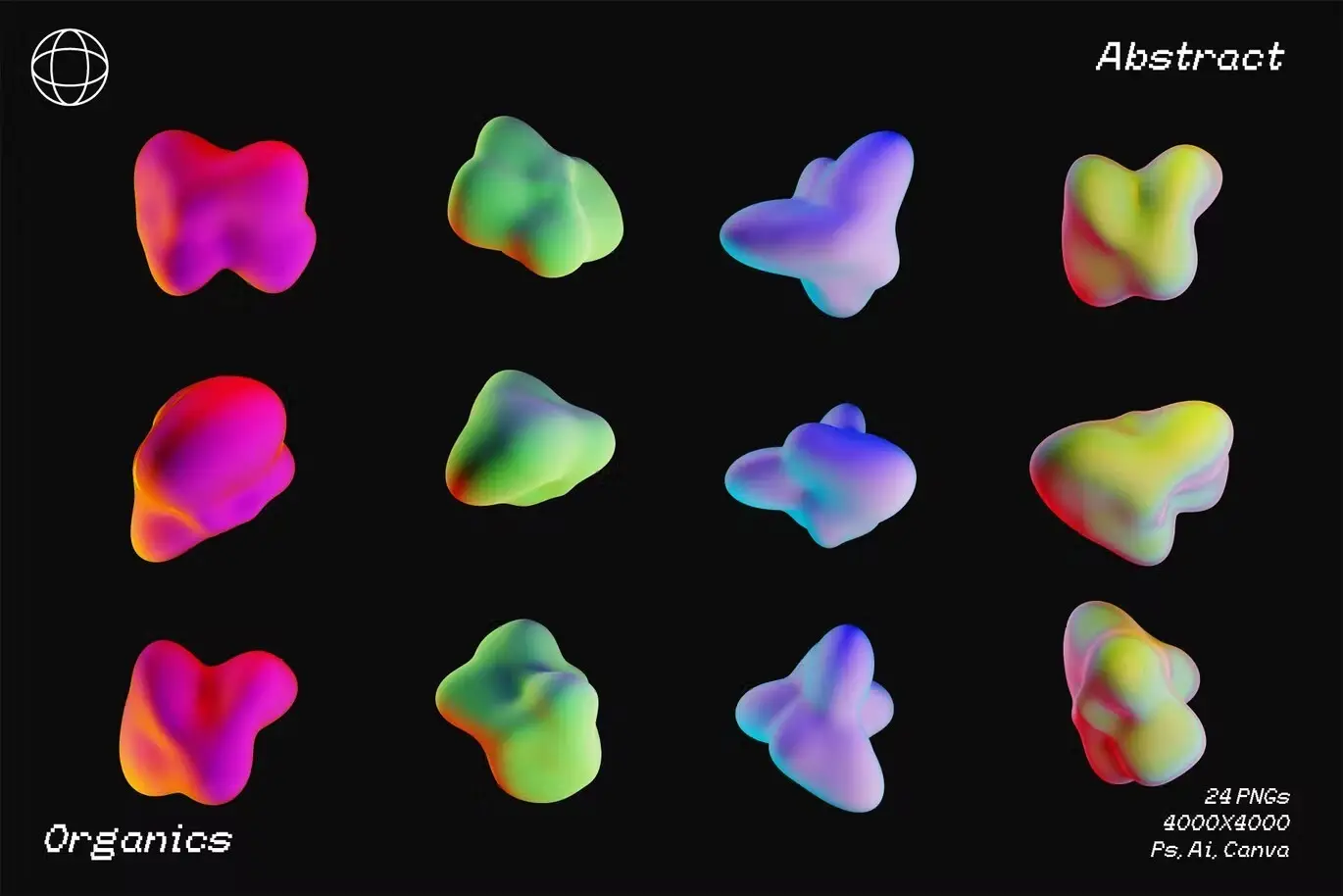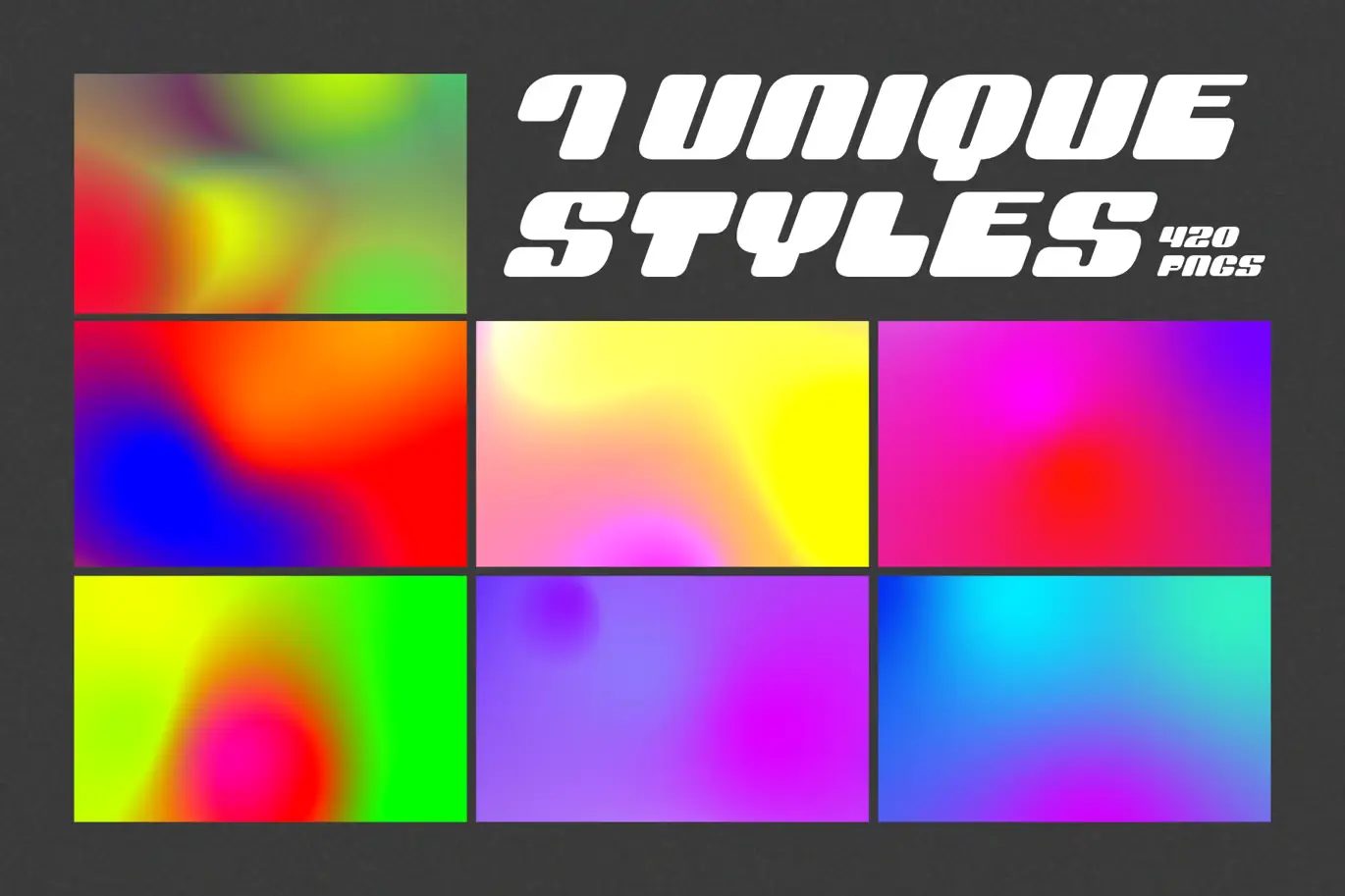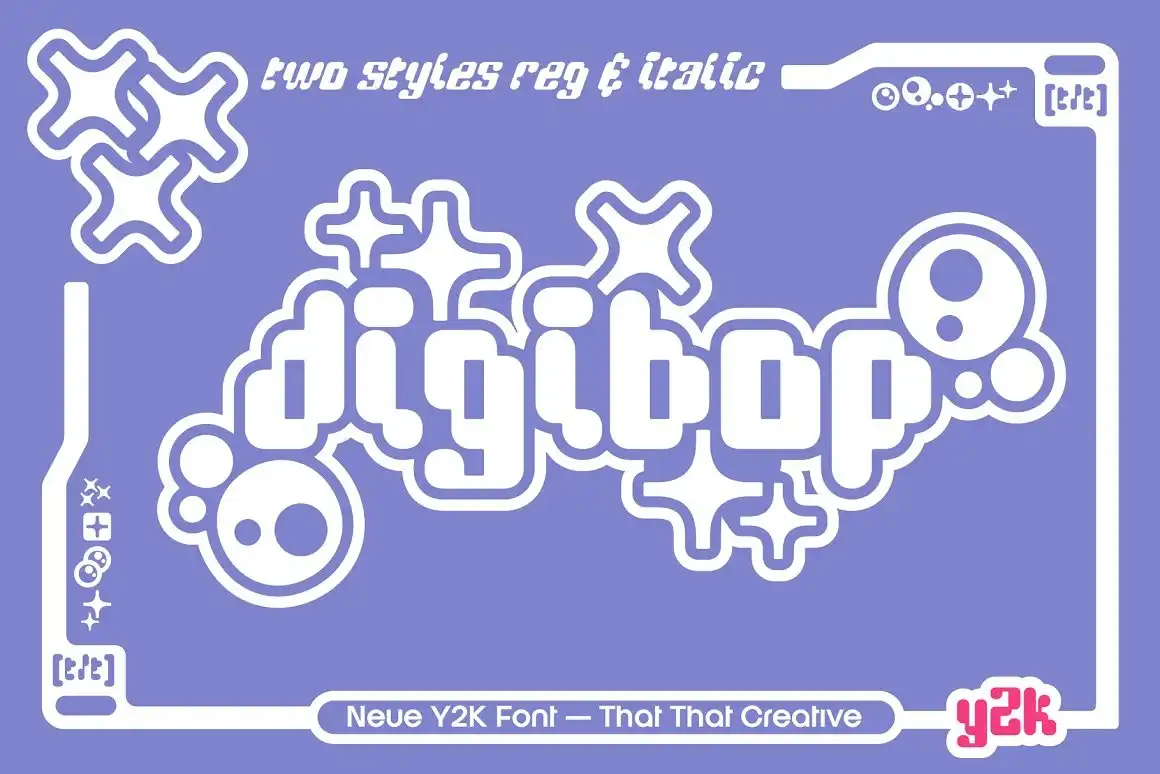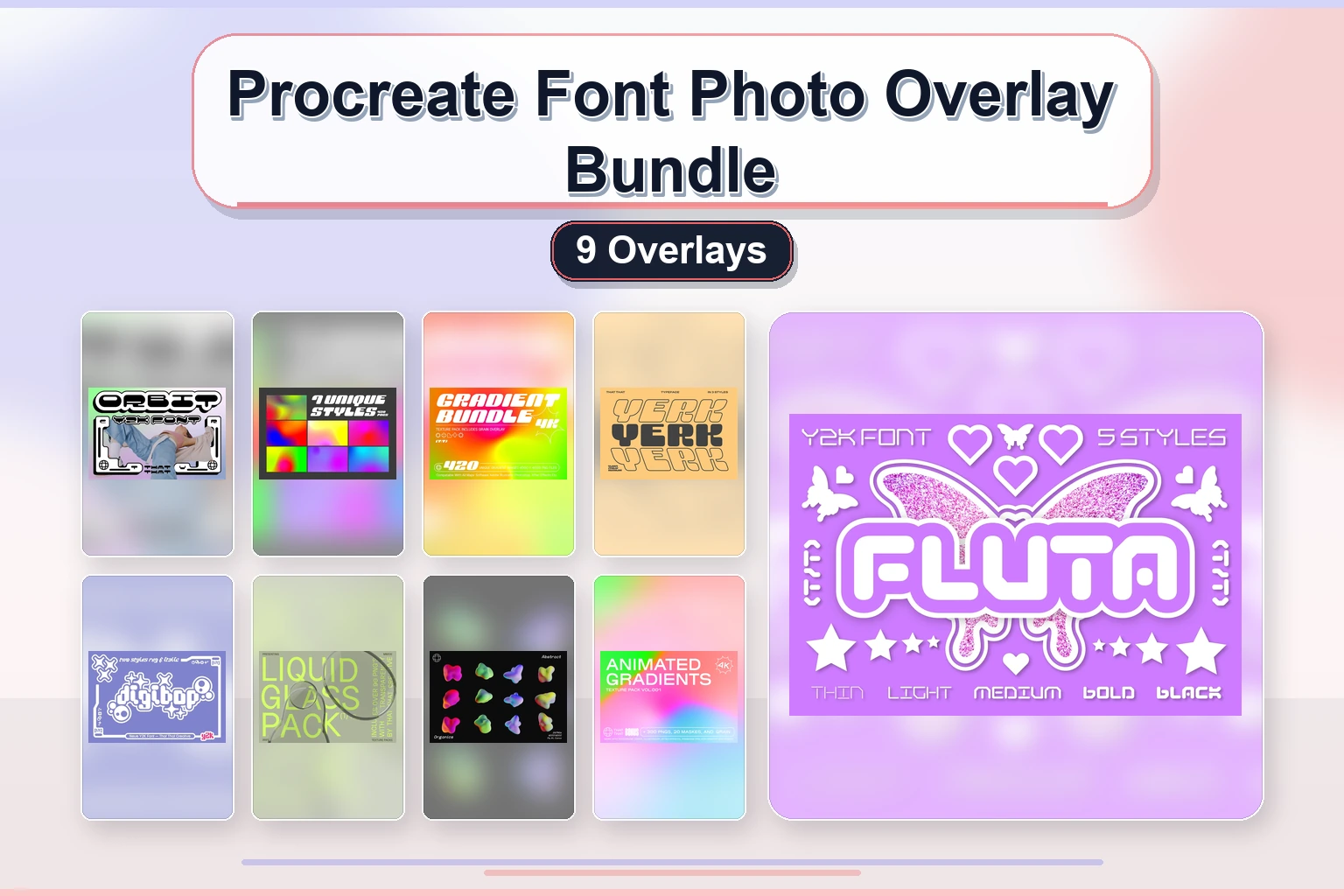
Creative Bundle for Procreate and Design Projects
If you’re looking to inject fresh energy into your digital artwork, graphic design, or social media projects, this collection is exactly what you need. The ThatThatCreative Bundle brings together nine versatile assets—from glowing gradients and liquid glass textures to Y2K-inspired fonts—each handpicked to help you craft visuals that stand out. Whether you work in Procreate, Adobe Photoshop, or any other design tool, these files are ready to use right away.
What’s Included in This Bundle?
- Abstract 3D Gradient Shapes – 60 trippy, retro-futuristic shapes with vibrant gradient fills, perfect for posters, stickers, and digital art.
- Gradient Backgrounds Pack (Animated) – 14 animated Y2K-inspired gradients with grainy textures for video and motion projects.
- Gradient Backgrounds Pack (Static) – 14 vibrant, Y2K-style static gradients with grainy textures for print and web design.
- Liquid Glass Texture Pack – 100 transparent 4K PNG liquid glass blobs for adding mesmerizing, iridescent overlays to any project.
- Y2K Font DigiBop Duo – A playful font duo that captures early 2000s nostalgia, ideal for branding and headlines.
- Y2K Font ORBIT – A retro-futuristic typeface with a space-age feel, great for posters and social media graphics.
- Y2K Variable Font: Fluta – A variable font with adjustable weight and style, bringing playful Y2K energy to logos and titles.
- Yerk Y2K Font in 3 Styles – A modern take on early 2000s typography, available in three distinct styles for versatility.
- Animated Gradient Texture Pack – A set of animated gradient textures for adding motion and color to backgrounds and overlays.
Bundle Description
This bundle is built for creators who love bold color, retro aesthetics, and tactile textures. The Abstract 3D Gradient Shapes give you whimsical forms that work as standalone art or layered elements. The two Gradient Backgrounds Packs (one animated, one static) provide grainy, Y2K-inspired backdrops for everything from Instagram stories to print materials. The Liquid Glass Texture Pack adds a futuristic, iridescent sheen with 100 high-resolution transparent blobs. And with four distinct font options—including the variable Fluta and the playful DigiBop Duo—you’ll have typography to match any mood. Each item is a full digital download with instant access.
Why This Bundle Works
The ThatThatCreative Bundle gives you everything you need to bring a vibrant, retro-futuristic edge to your projects. From liquid glass textures to Y2K fonts and animated gradients, each asset is ready to drop into your designs. Start creating with a collection that’s as versatile as it is inspiring.